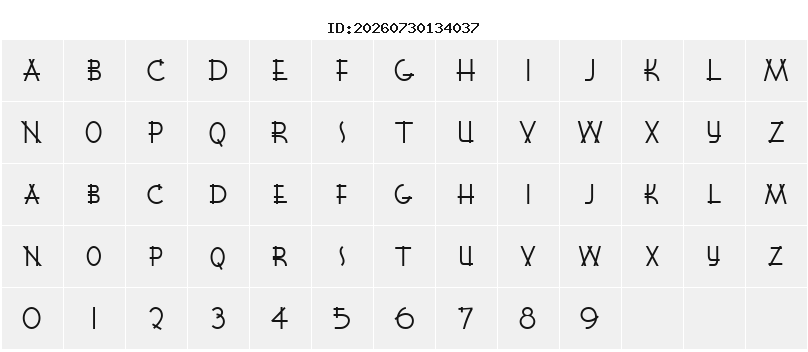
K22 Lawenta Preview
• Font Name: K22 Lawenta
• Full Font Name: K22 Lawenta
• Description: Based on an alphabet on pages 63 of 101 Alphabets by W. Ben. Hunt and Ed. C. Hunt published by The Bruce Publishing Company, New York, 1958. Toto Kyusi, Pilipinas toto@ispx.com.ph + to22to@gmail.com April 21, 2012
K22 Lawenta.ttf is a modern, elegant sans-serif font designed for ultimate readability and visual harmony. Perfect for branding, headlines, web design, and print materials.